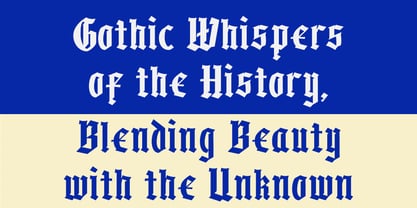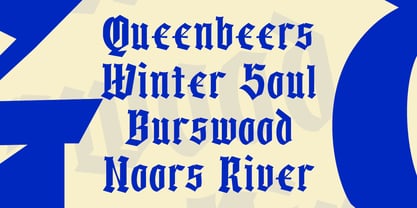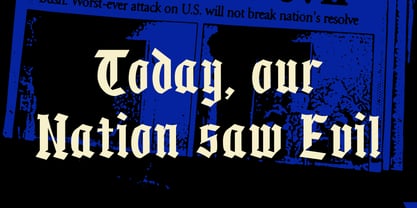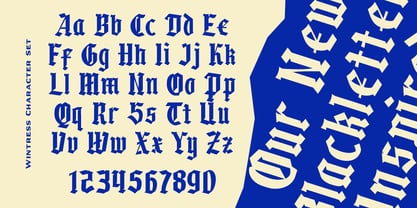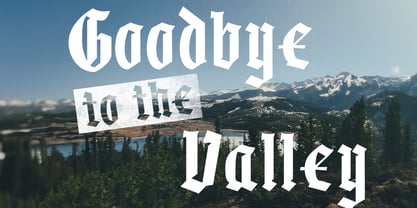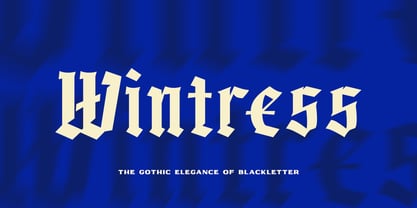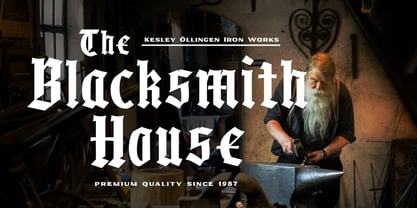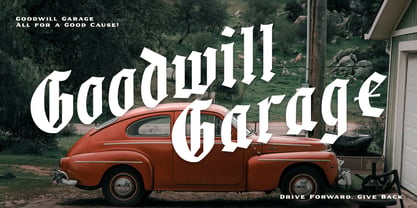
Wintress
by Angin Studio
The Wintress Font Family was designed by Ahmad Aswin, David Novrian and published by Angin Studio. Wintress contains 1 styles. More about this family
Wintress a blackletter font inspired by the Fraktur manuscripts. Designed to bring an air of timeless elegance to your projects, Wintress combines the dark allure of Gothic style with delicate, refined details, echoing the craftsmanship of centuries past.
Each letter captures the essence of traditional Fraktur with modern readability, perfect for projects that seek to evoke heritage and sophistication. Ideal for branding, invitations, book covers, and art pieces, Wintress also comes with multingual support.
Designers: Ahmad Aswin, David Novrian
Foundry: Angin Studio